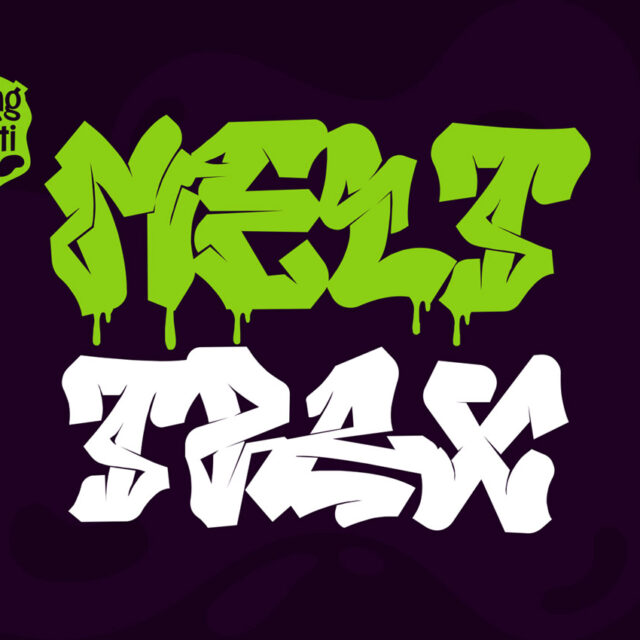
Melttrax – Wild Graffiti Font with Drip
Melttrax
Wild Graffiti Font with Drip
Wild graffiti font in Regular and Drip styles. All-caps, multilingual, with OTF, TTF, WOFF formats. Ideal for bold branding and street culture projects.
About Melttrax
Unleash Raw Street Energy with Melttrax – A Wild Graffiti Font Featuring Drip Effects and All-Caps Characters
Melttrax is a high-impact wild graffiti font that captures the rebellious energy of the streets. This all-caps typeface is made for creators who want their work to speak loud, bold, and unapologetically raw. Designed with powerful uppercase letters and expressive strokes, Melttrax features both clean and dripping styles, offering creative control for any visual need.
Whether you’re working on streetwear labels, urban music promotions, edgy posters, or video thumbnails, Melttrax delivers an unmistakable street statement. Its wildstyle form, dripping contours, and organic rhythm make it one of the most authentic graffiti fonts available today.
Two Expressive Styles Included
The Melttrax font arsenal includes:
• Melttrax Regular (OTF, TTF, WOFF) – A clean wildstyle version with sharp edges and structured forms
• Melttrax Drip (OTF, TTF, WOFF) – A chaotic version with realistic dripping details to amplify its raw urban attitude
By providing these two variations, Melttrax allows you to fine-tune your tone—choose precision or go full rebellion depending on your project.
Key Features of Melttrax
• All-Caps Characters – Designed entirely in uppercase for bold messaging
• Two Styles Included – Choose between Regular and Drip versions
• Multilingual Support – Covers extended Latin character sets for global audiences
• Stylistic Alternates – Offers subtle letterform variety for added custom feel
Why Designers Choose Melttrax
Designers are drawn to Melttrax because it gives them an expressive typographic arsenal that feels real, loud, and unfiltered. Its graffiti-inspired forms are rooted in the aesthetics of underground subcultures—ideal for brands and creators who dare to break conventional design rules.
Furthermore, the unique alternates help break the repetition of typical digital fonts, resulting in a layout that looks less manufactured and more authentic. Because of that, Melttrax works especially well for music posters, festival branding, and bold editorial spreads.
In addition, the two-style system (clean and drip) provides flexibility, making it an ideal choice for projects where contrast between structure and chaos is key. Whether used for titles or supporting graphics, Melttrax delivers a dynamic visual rhythm that resonates.
Graffiti with Multilingual Range
Another advantage of Melttrax is its multilingual support. The font includes extended Latin glyphs and special characters, making it suitable for use across different regions and languages. This means whether you’re designing for a French skate brand, a German rap label, or an international streetwear drop, Melttrax adapts without losing its graffiti core.